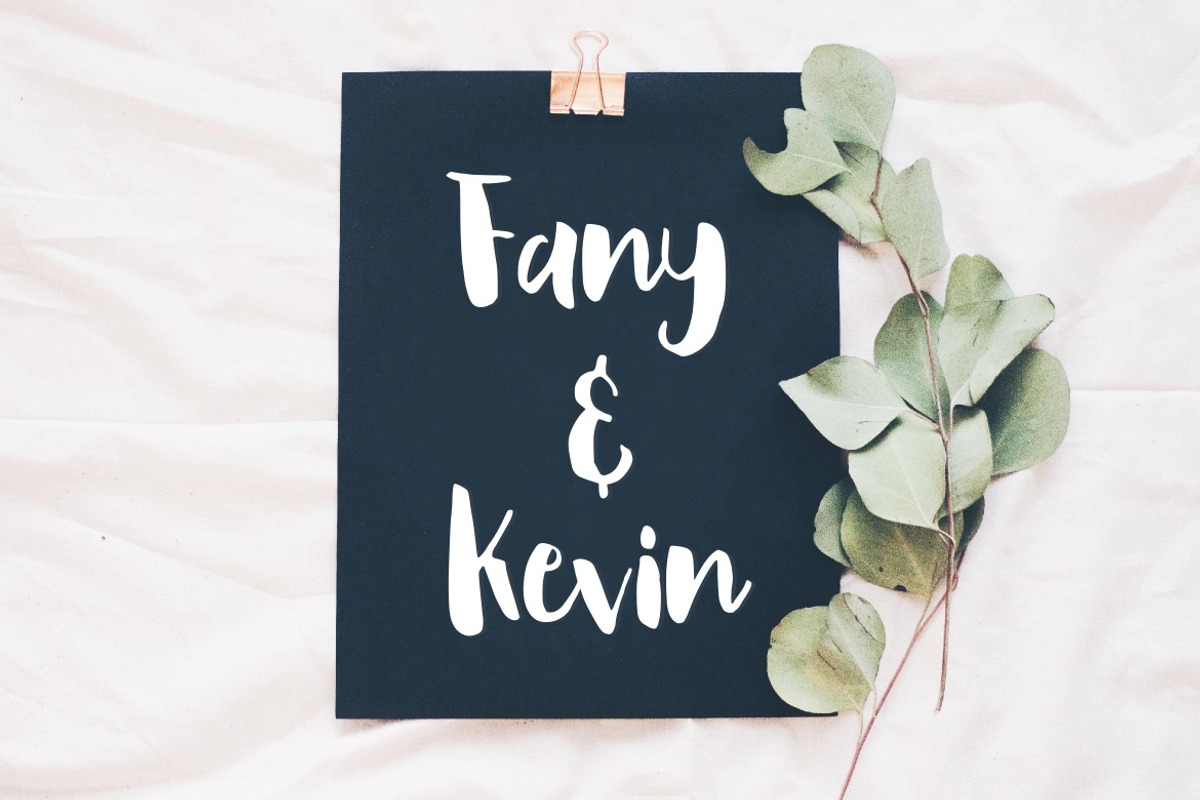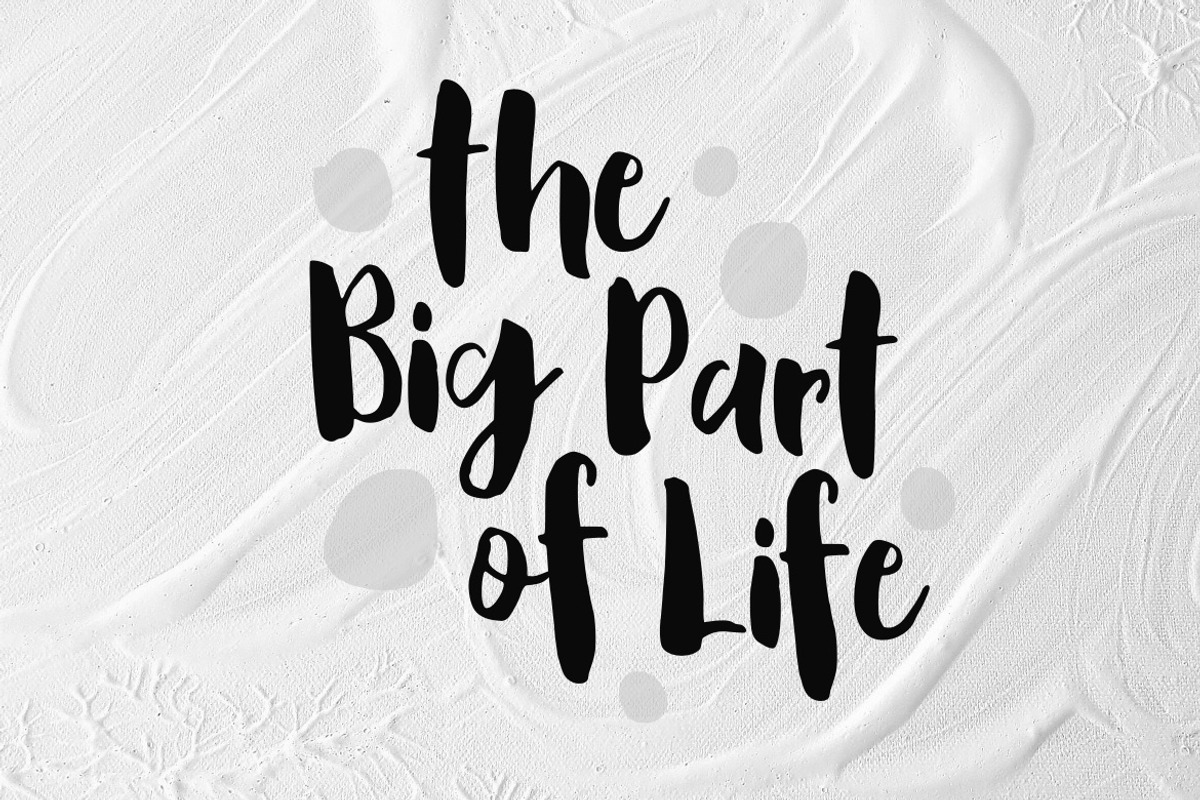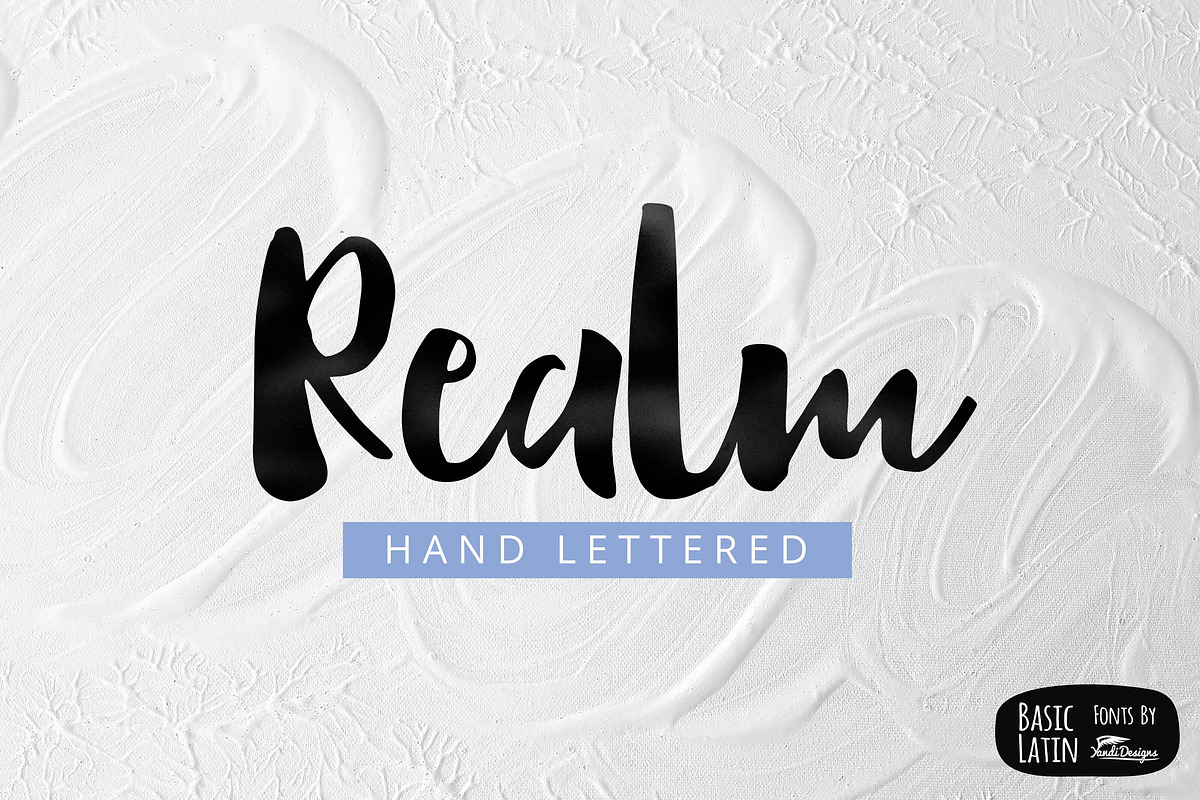
Realm Font
Artistic and simple hand lettered brush script font , suitable for many project , quotes, logo , doodle, heading , title etc.
Realm Font by YandiDesigns fits naturally into Branding, posters, packaging, typography.